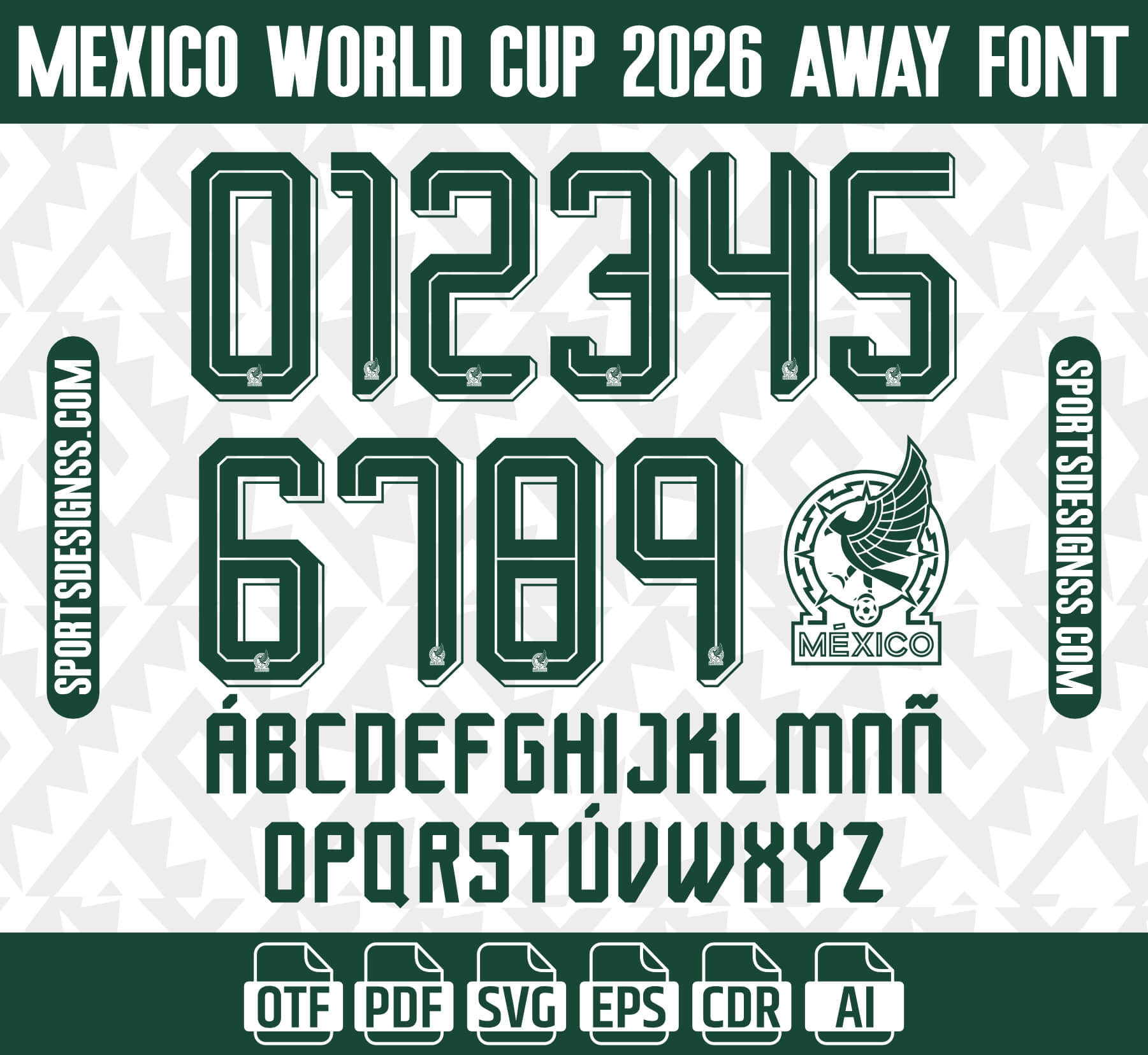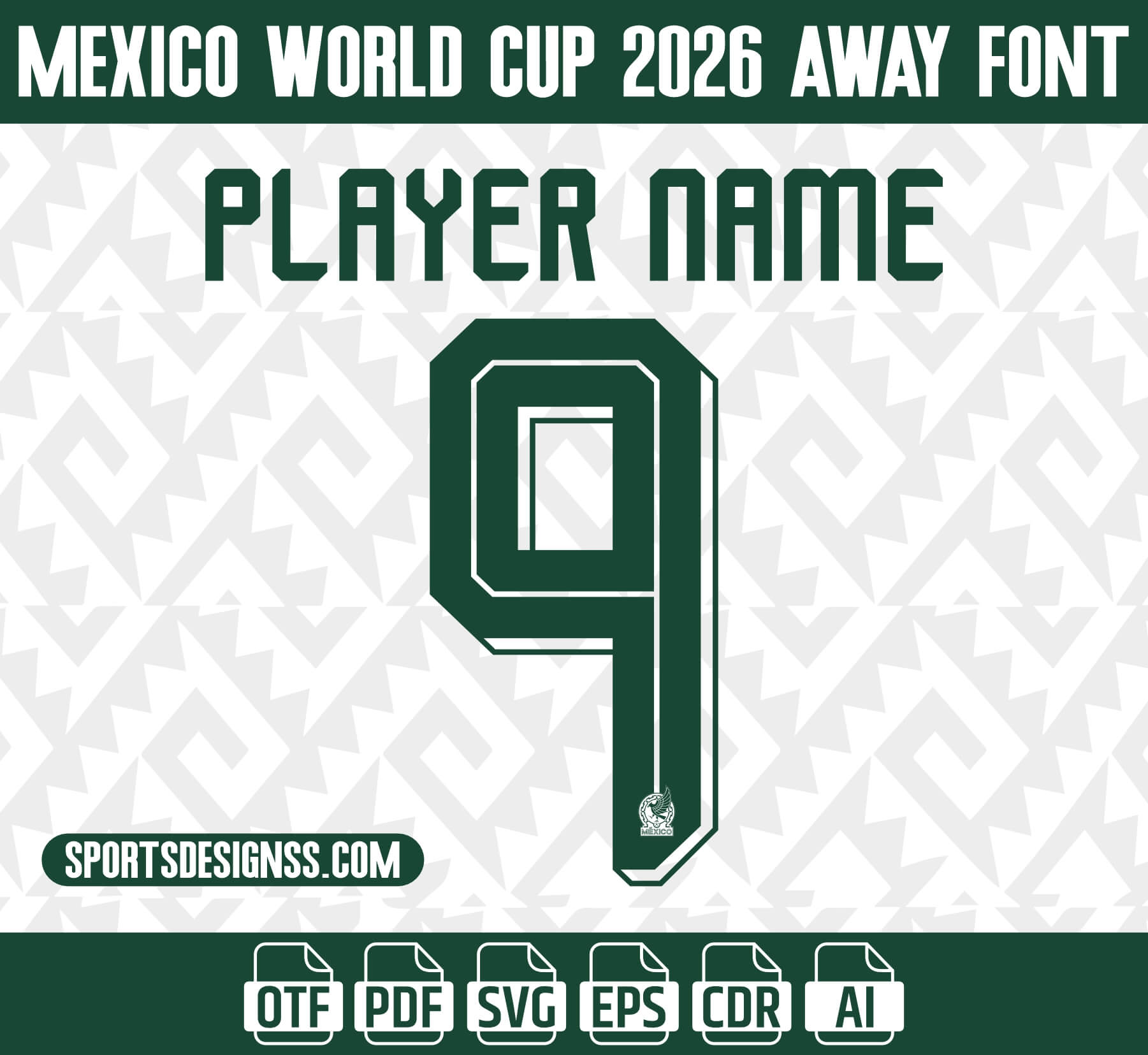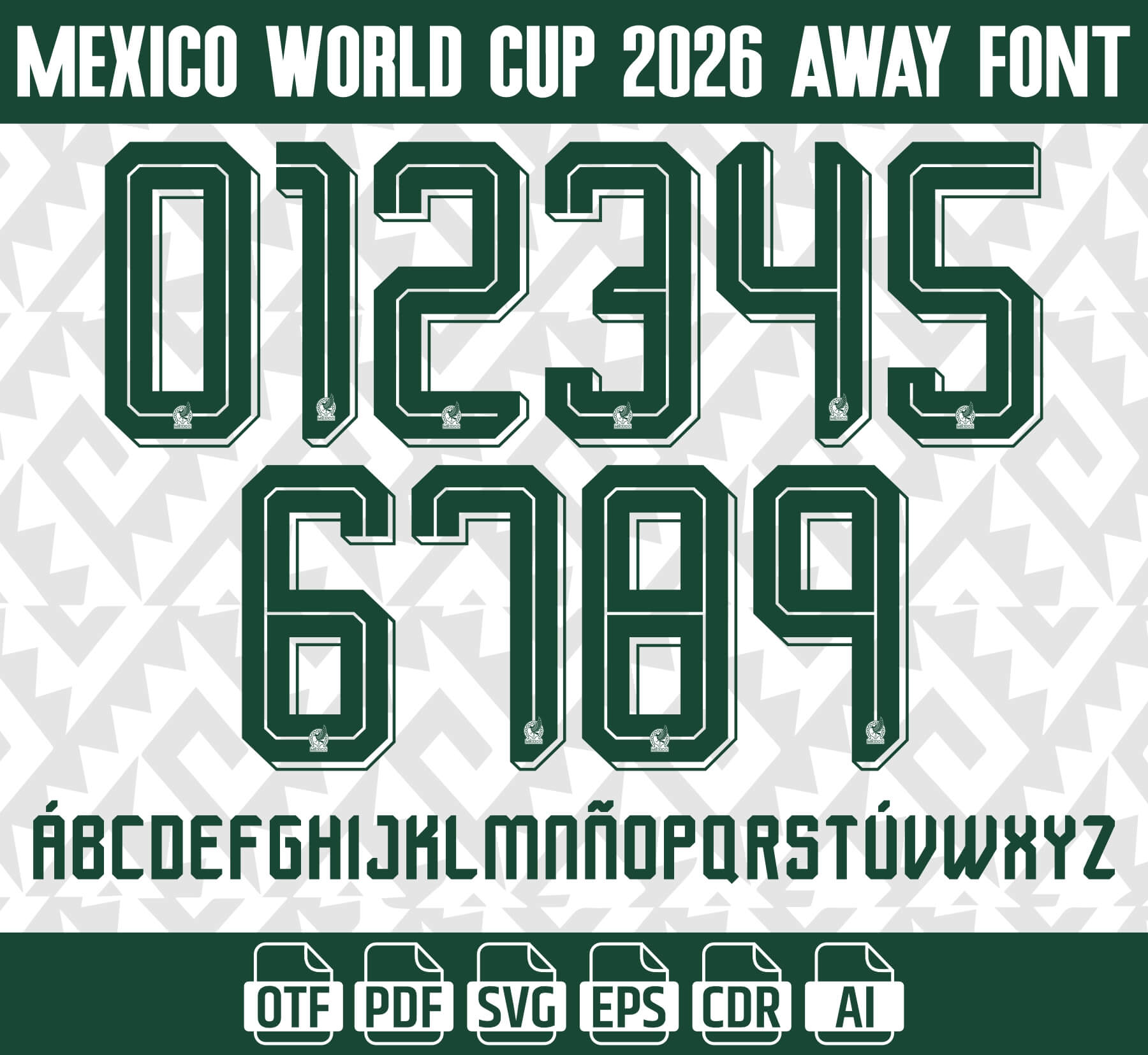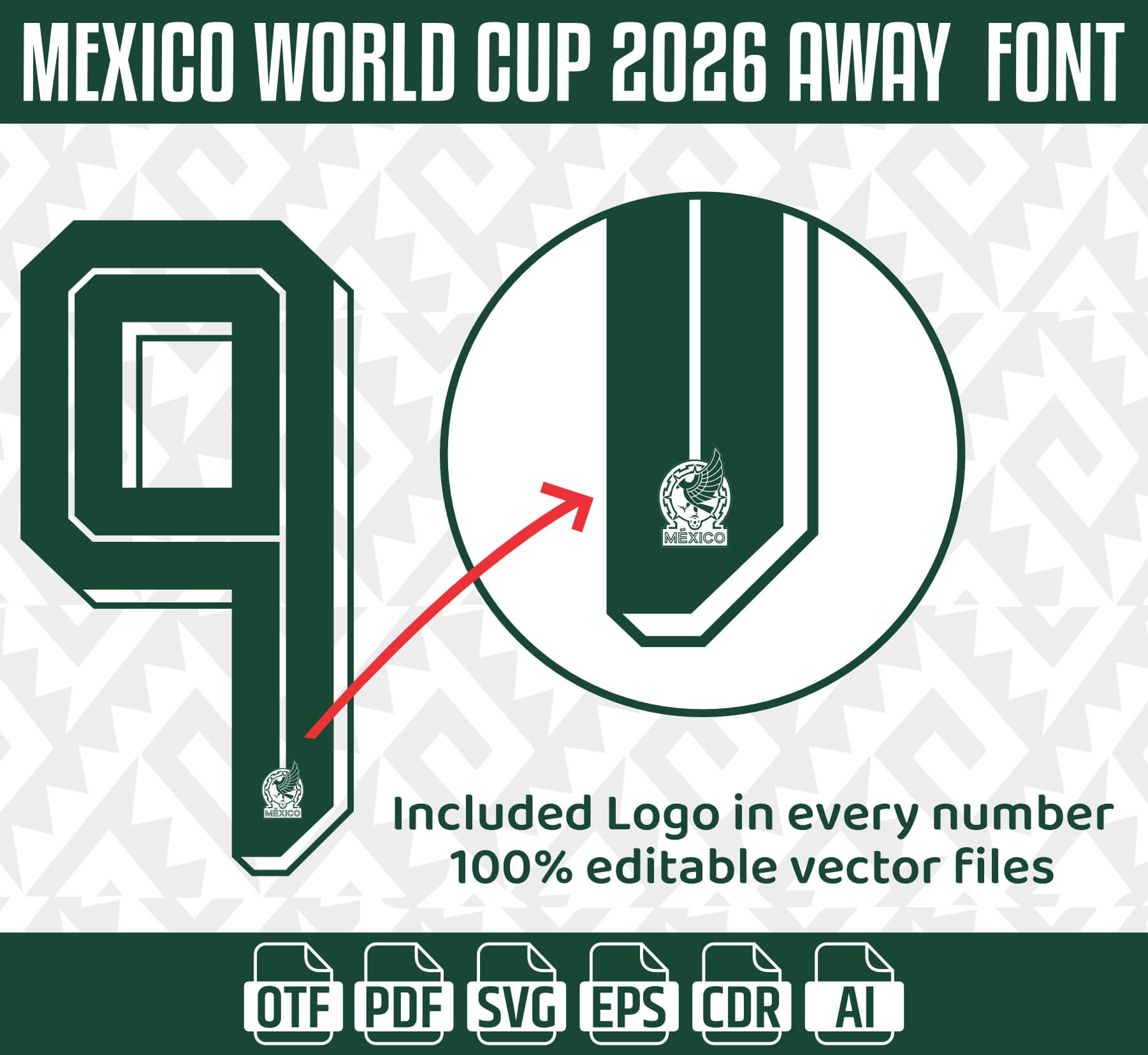
๐Ÿ”ฅ Mexico World Cup 2026 Away Jersey Font
Create authentic Mexico 2026-inspired football jersey designs with this premium name and number font package. Perfect for jersey makers, graphic designers, print shops, Cricut users, and football fans looking to recreate the iconic Mexico away-kit style.
โœ… Authentic Mexico 2026 Away Jersey Typography
โœ… Letters Aโ€“Z & Numbers 0โ€“9
๐Ÿ”ฅ Mexico World Cup 2026 Away Jersey Font โ€“ Official Style Name & Number Typeface
Bring the authentic Mexico 2026 World Cup away-kit look to your designs with this professionally recreated soccer jersey font package. Inspired by the typography worn by El Tri during the FIFA World Cup 2026, this font is perfect for jersey makers, graphic designers, crafters, print shops, and football fans.
โ€ข Letters Aโ€“Z
โ€ข Numbers 0โ€“9
โ€ข Official Away Kit Style